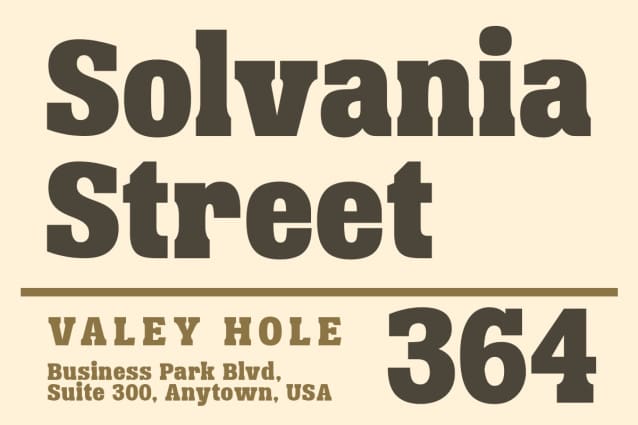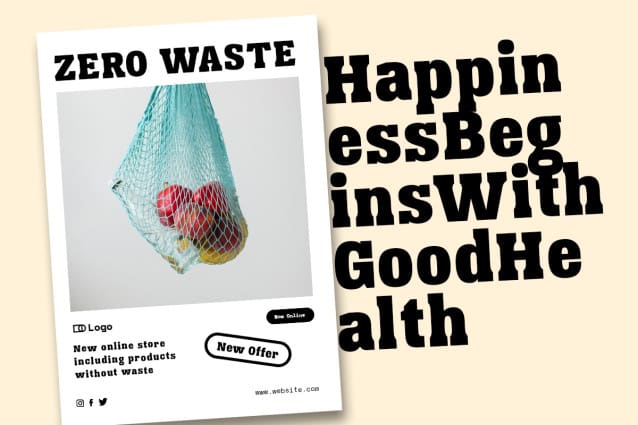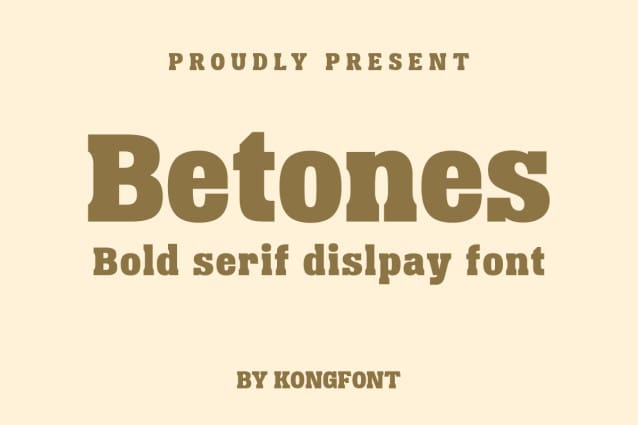
Betones Font
Betones Font – Modern Classy Serif Bold Font is a typeface that exudes a stylish and modern impression. Easy to read yet artistic, this font can serve many uses depending on the user. This font is best used as it has a medium serif. Betones Font – Modern Classy Serif Bold Font is part of the serif font family.
Betones Font – Modern Classy Serif Bold Font can be used as a digital font for promotions on the web and social media, as well as in print forms, such as magazines and posters. One product that can be combined with this font is fashion and beauty. Magazines that cover fashion and beauty topics can use Betones Font – Modern Classy Serif Bold Font for their covers. This font can be used for product branding, such as brand tags and posters.
Keeping in mind modern business needs, Betones Font – Modern Classy Serif Bold Font is also suitable for personal business cards and business signage that denotes a place, such as cafes, boutiques, and make-up shops.